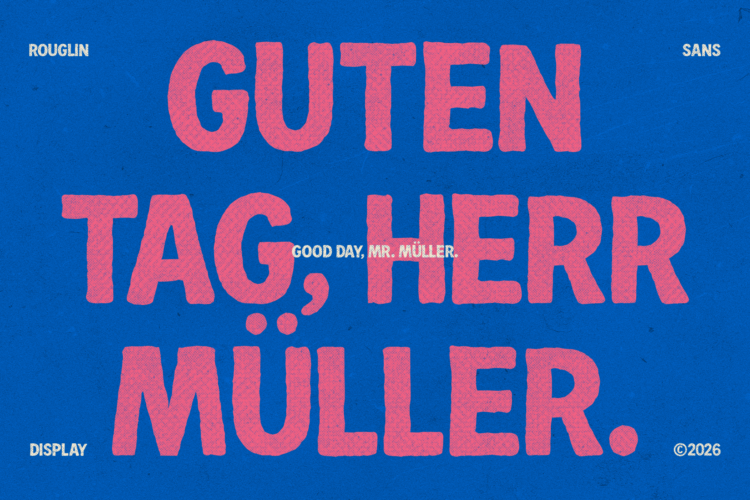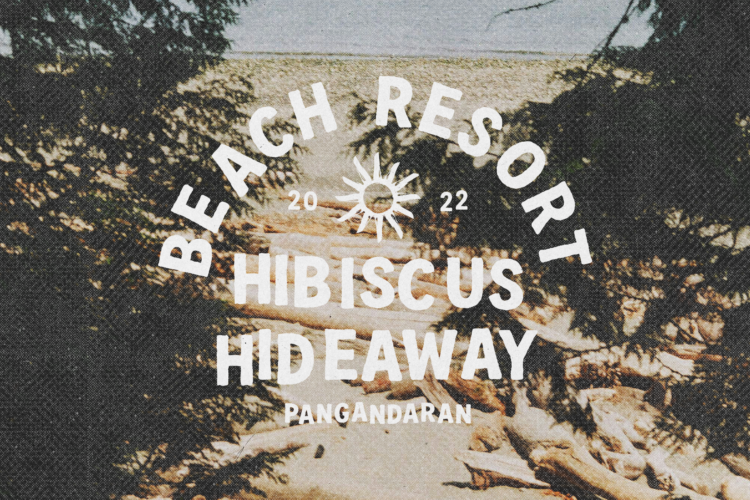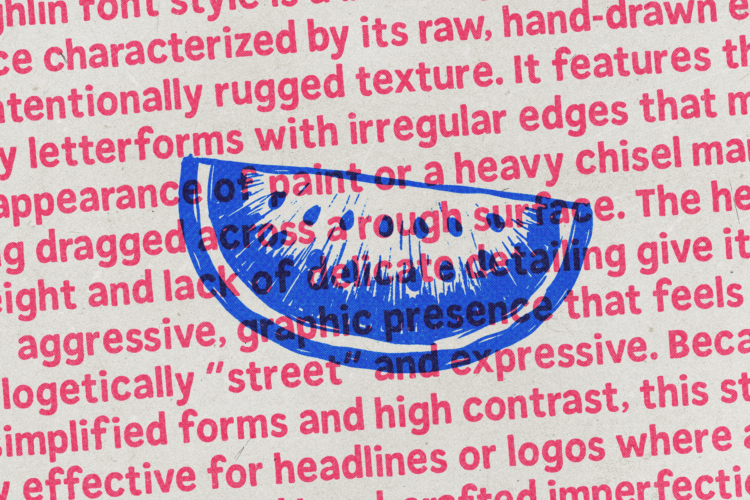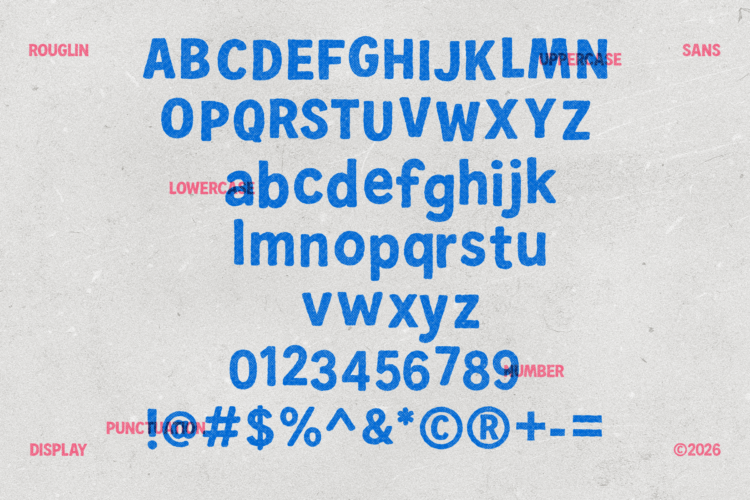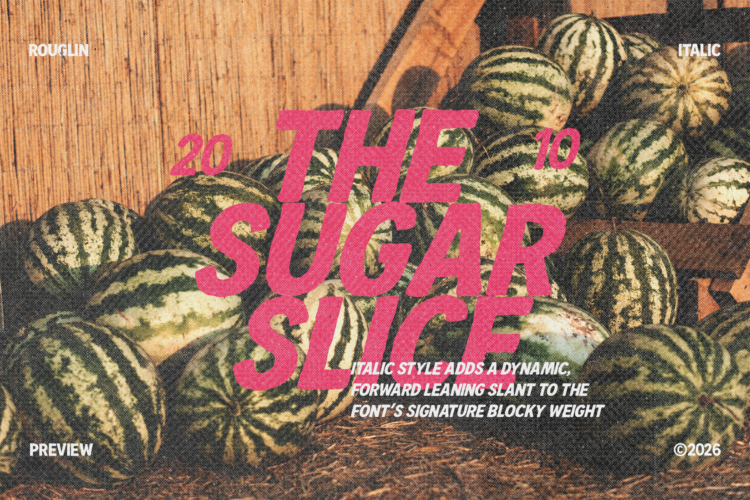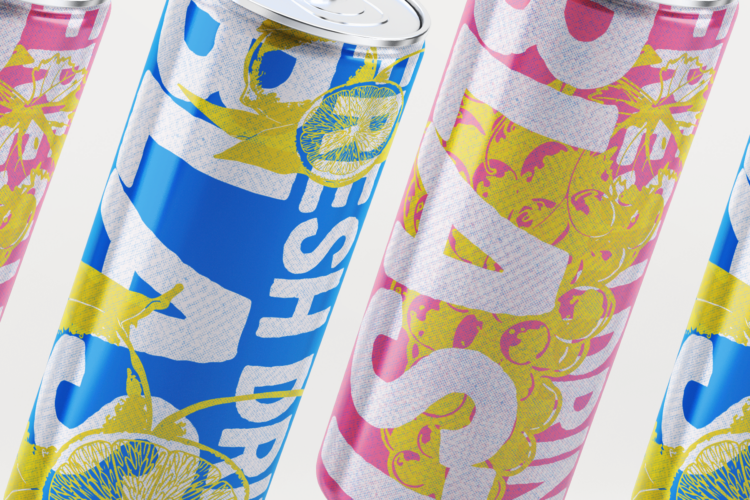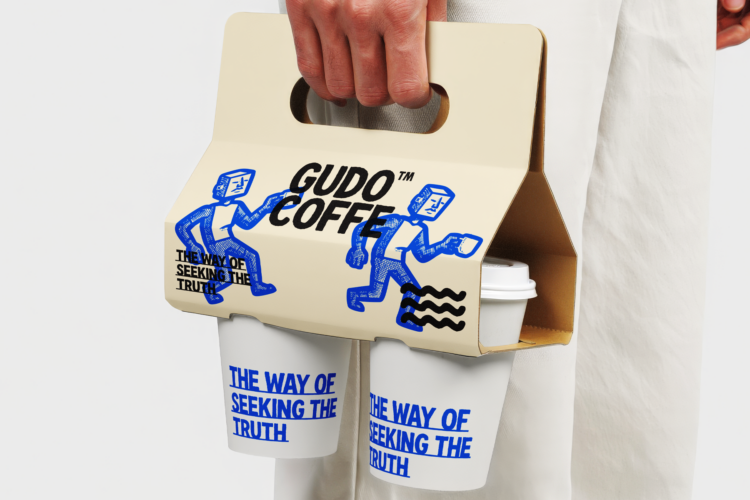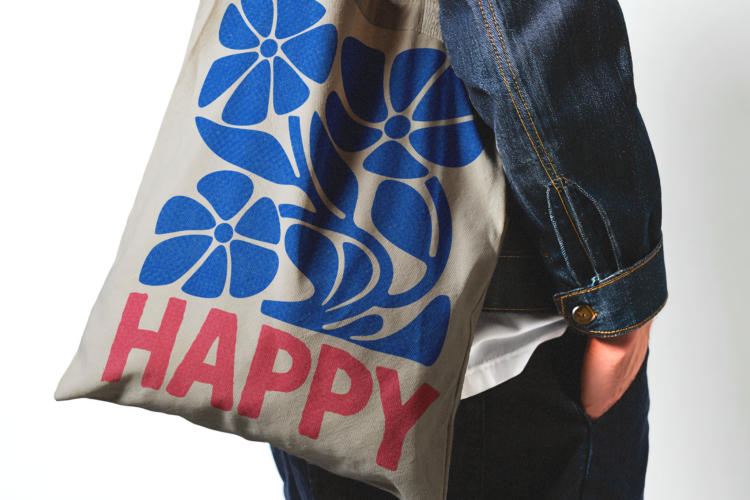
Roughlin
Roughlin is a bold and unapologetically raw sans-serif display font that captures the gritty, handcrafted energy of urban art and DIY culture. Its distressed edges, irregular textures, and deliberately imperfect strokes give it an authentic, lived-in feel that polished typefaces can’t replicate. This is a font with character, attitude, and a story to tell, built for projects that value authenticity over perfection. Available in both a gritty Regular and a dynamic Italic style, Roughlin brings an edge of streetwise credibility and creative rebellion to any design. Perfect for music posters, streetwear branding, editorial layouts with an alternative vibe, and any project that needs to feel real, urgent, and human. It’s not just a typeface—it’s a statement of raw, unfiltered expression.
• Standard Character A-Z, a-z, 0-9, Punctuation & symbols
• Regular and Italic Style
• Multilingual Support accents and diacritics